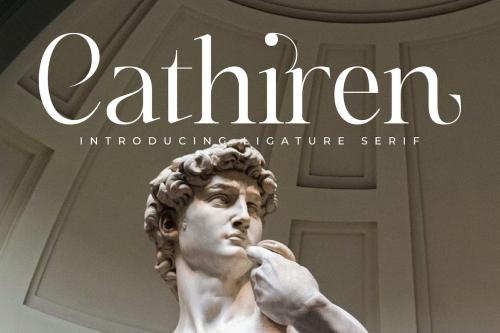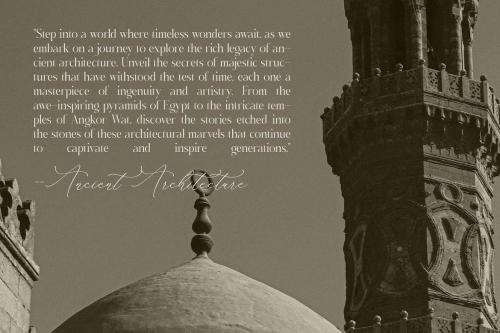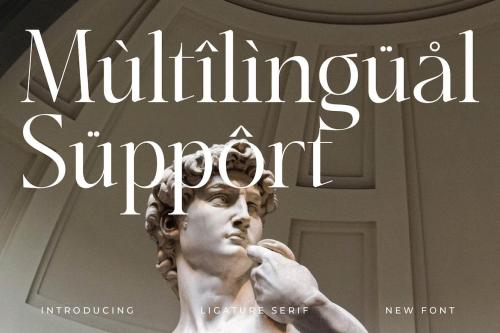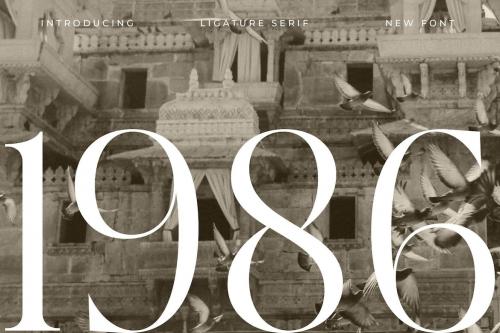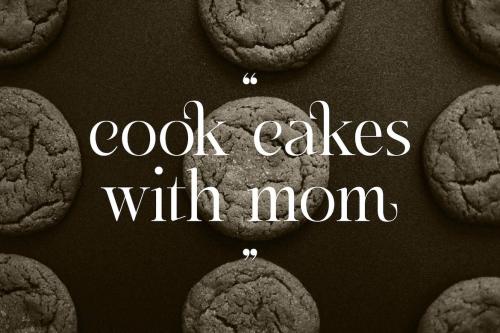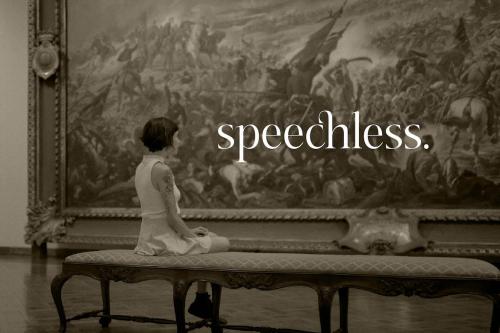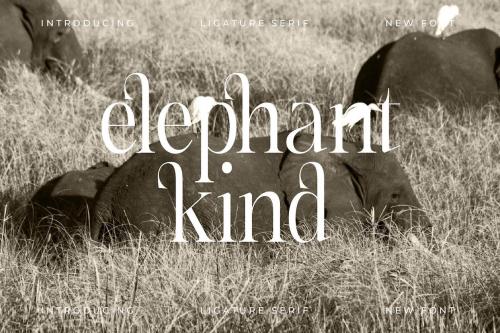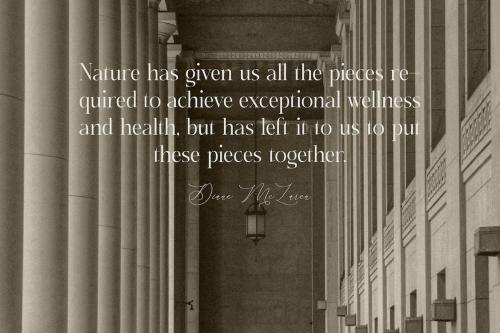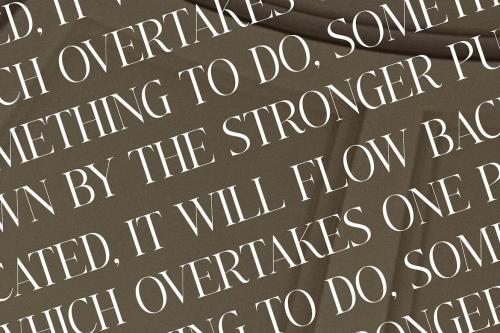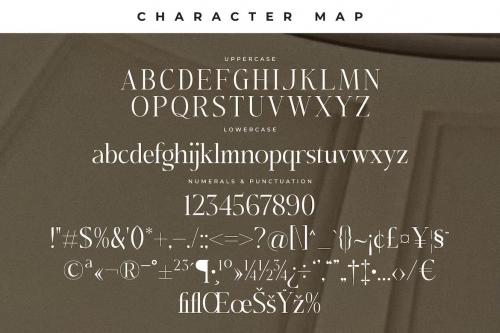
卡滕林连字符 serif 字体
Cathiren Ligature Serif Font
Hi ladies & gentlemen, this is one of our fonts suitable to complement your digital and printed creative products.
This font is perfect for posters, social media posts, branding, personal projects, etc.